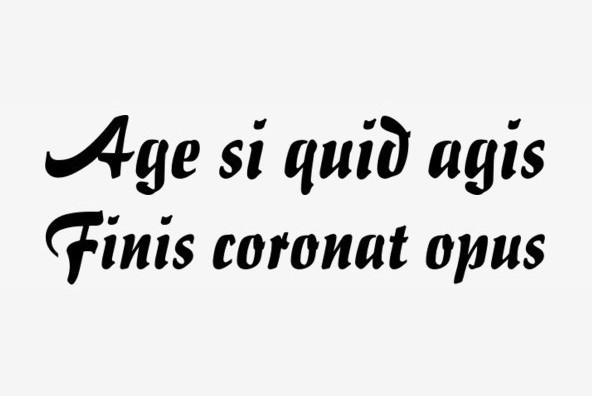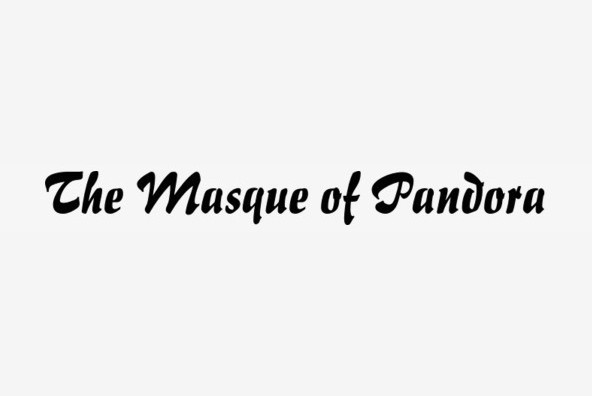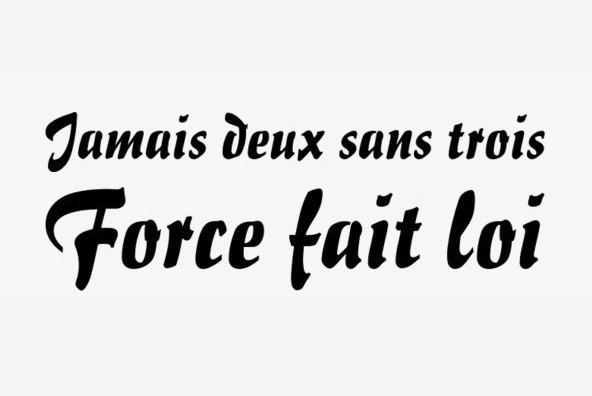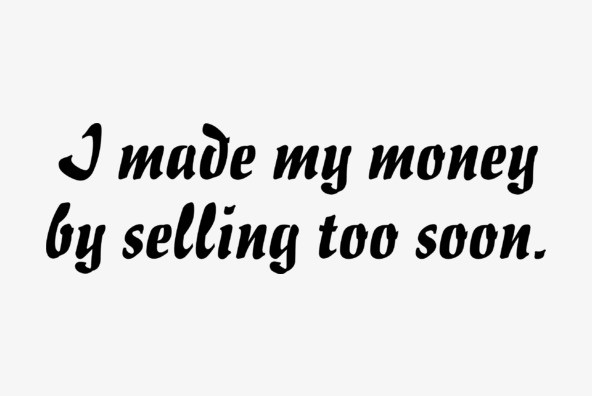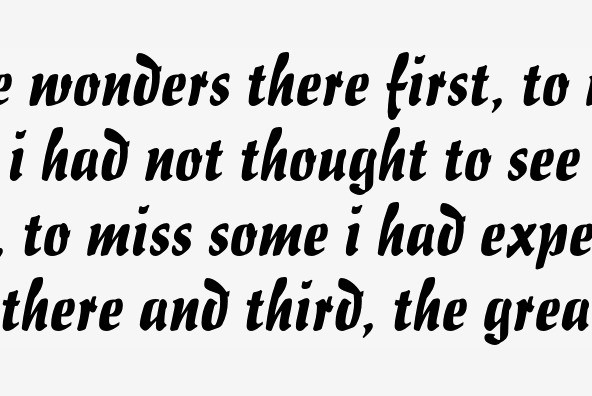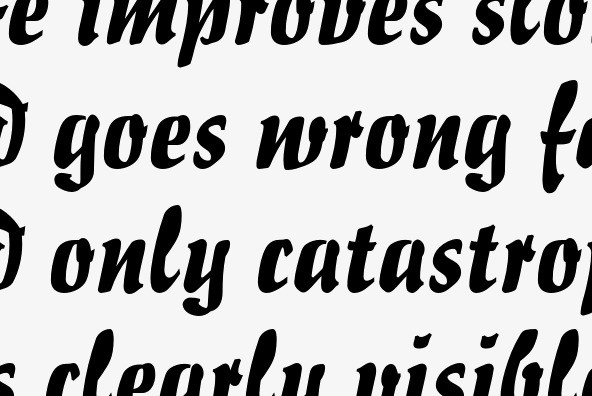
Impuls Pro
Foundry: RMU Typedesign
Based on remnants of the Typoart, Dresden, version of Impuls, this is a carefully extended pro-version covering Europe’s main languages written in Latin letters.